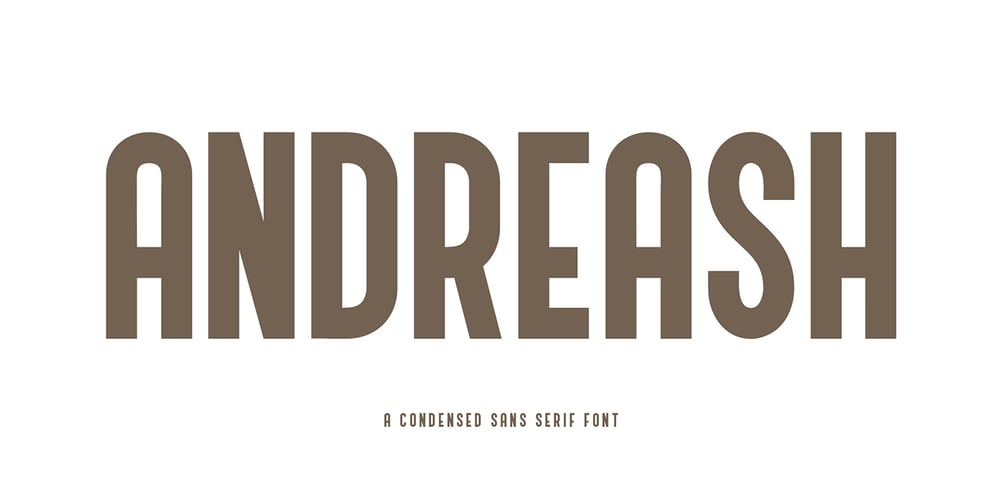
Andreash Font Family was designed by Yahdi Kumala and published by Rometheme. Andreash contains 1 styles and family package options. Andreash – Sans Serif Font. It has a elegant, classy look and beauty. It’s a great font for fashion, apparel projects, signature, album cover, logo, branding, magazine, social media, & advertisements, but also works great for other projects.Highlight:- Easy instalation- Work on PC or Mac- PUA Encoded Support- Basic Latin A-Z and a-z- Numbers- Symbols- No special software is required, The fonts can be opened and used in Adobe Illustrator, Adobe Photoshop, Adobe InDesign, even work on Microsoft Word.